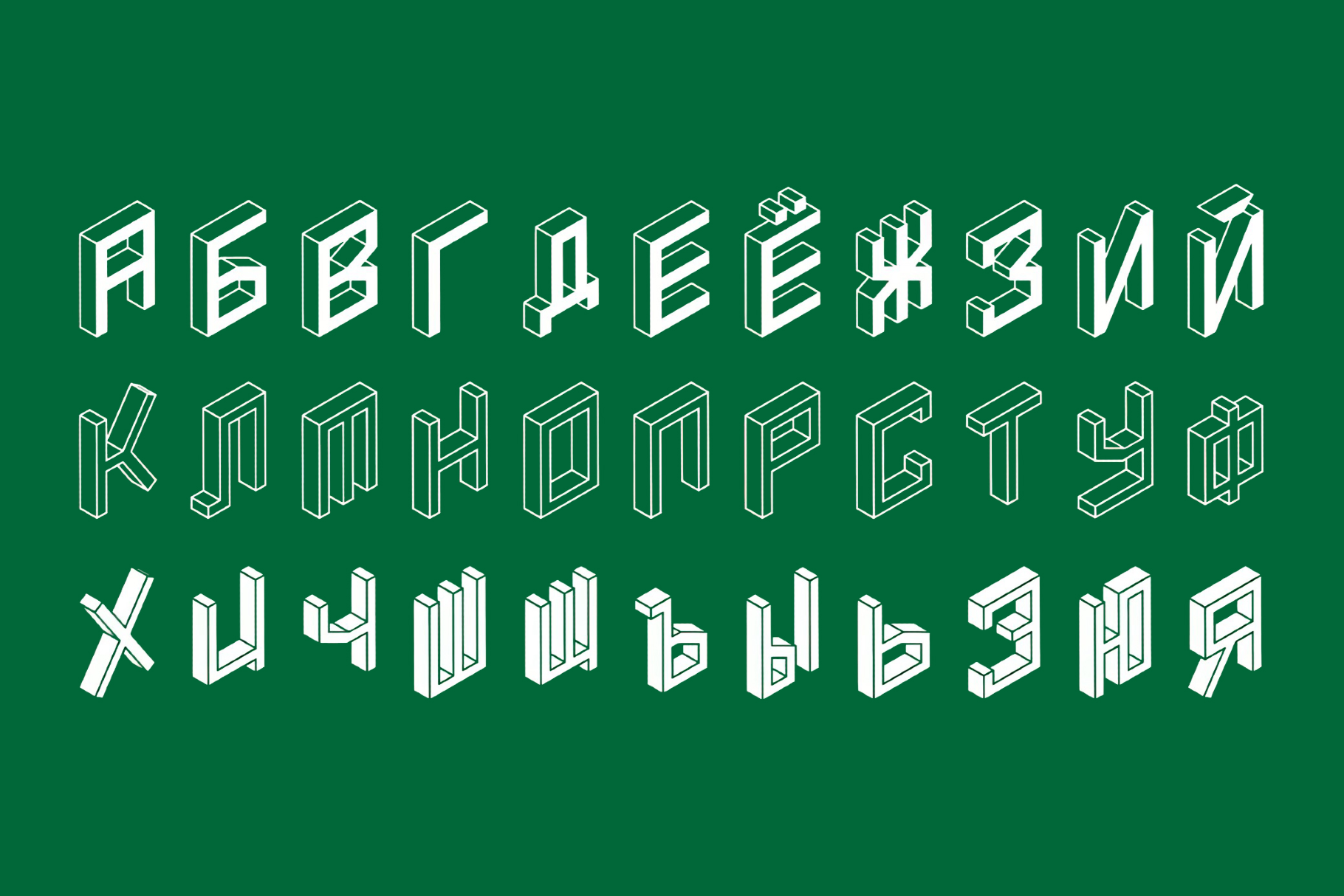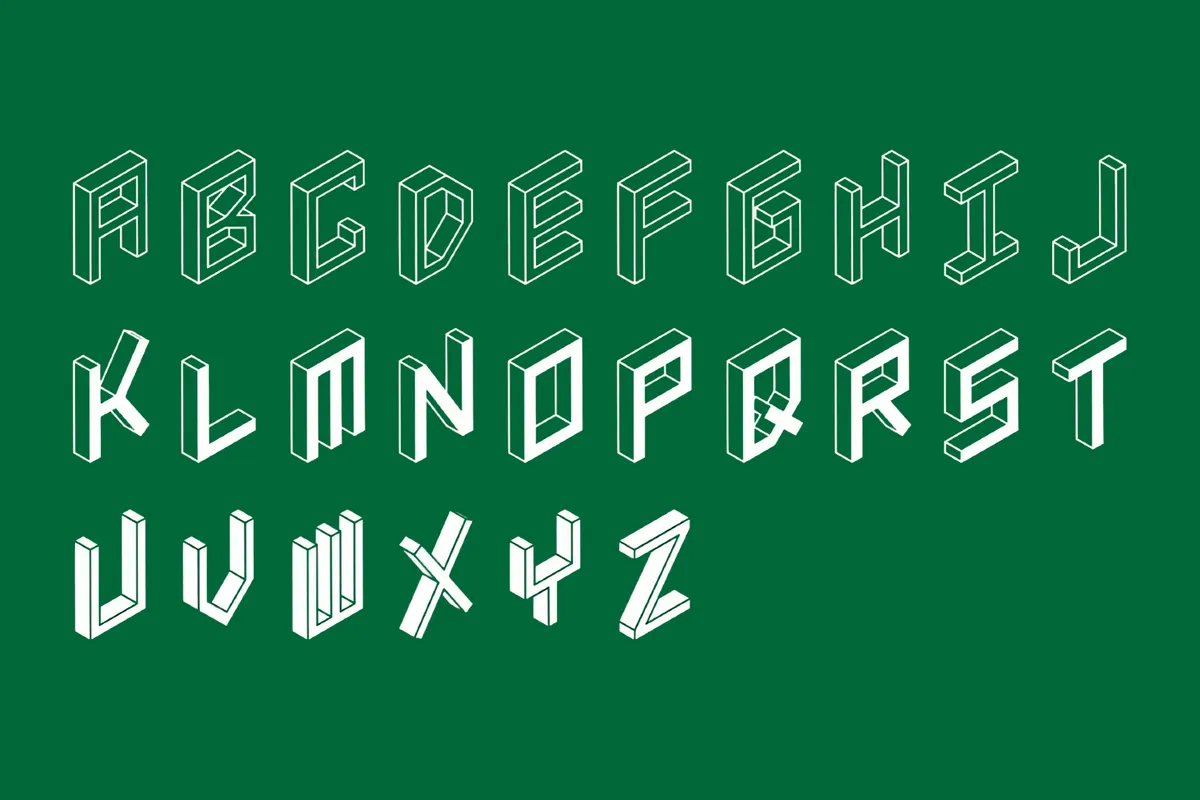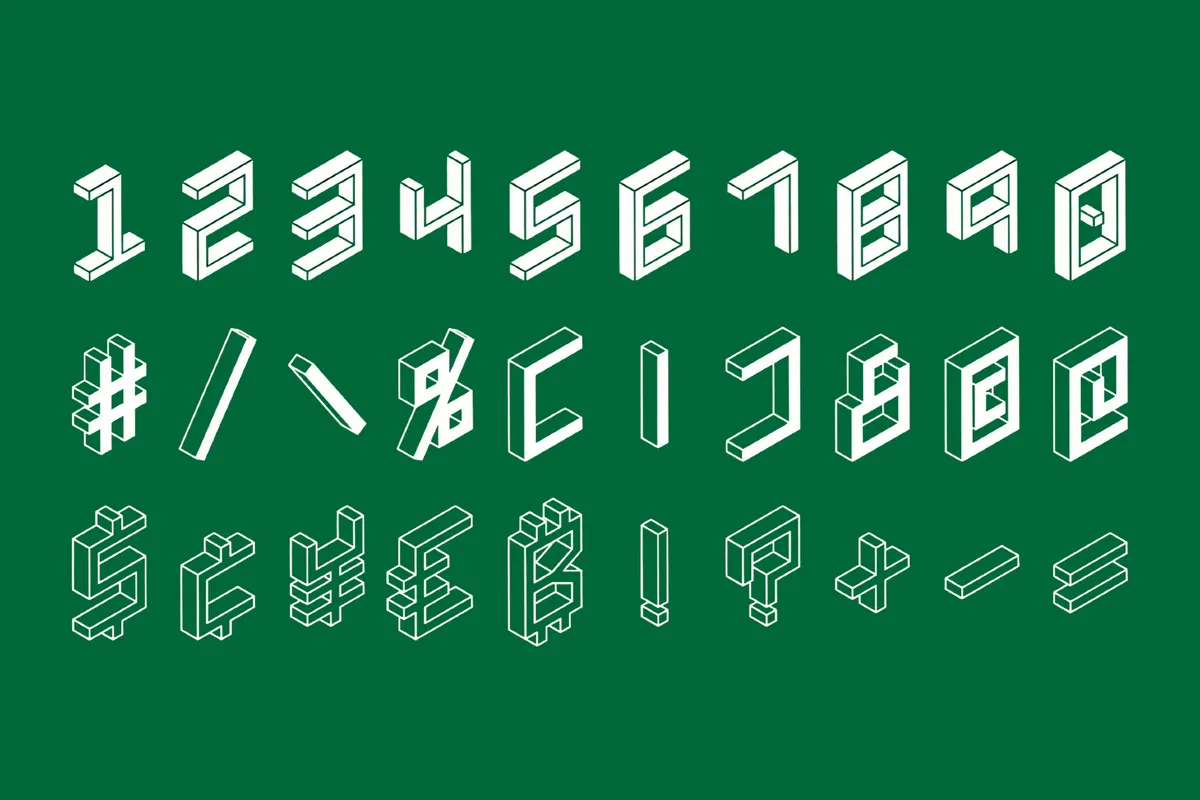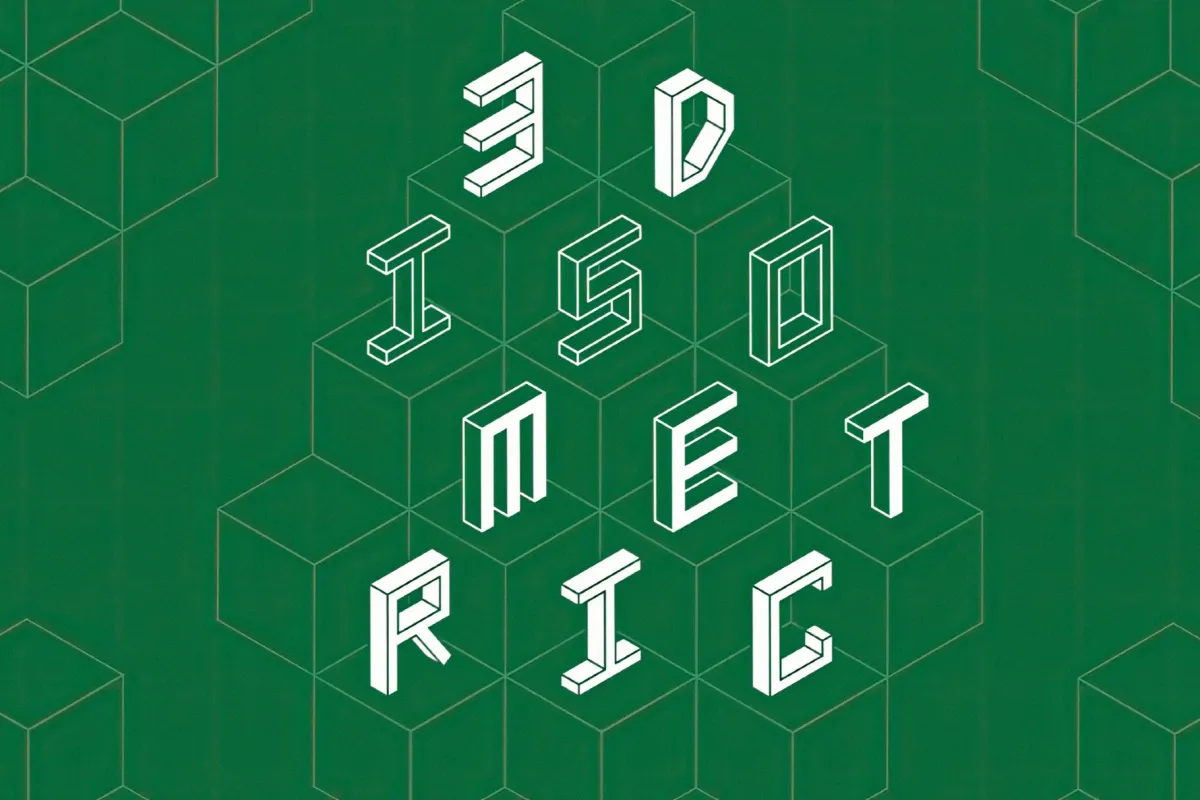
3D Isometric Font Family
The 3D Isometric font family stacks bold block letters into an angled grid, so every word looks like a tiny rendered object sitting in 3D space. A clear front plane and stepped side planes of characters are well-suited to poster headlines, game titles, app splash screens, infographic lettering, tech-themed branding, educational graphics, packaging accents, and animated title sequences.
- Three styles: Regular, Bold, and Black.
- Uppercase and lowercase letters, numbers, punctuation, and symbols.
- Multilingual support across extended Latin and Cyrillic scripts.